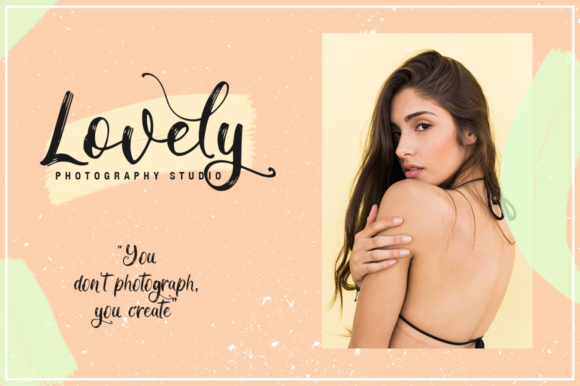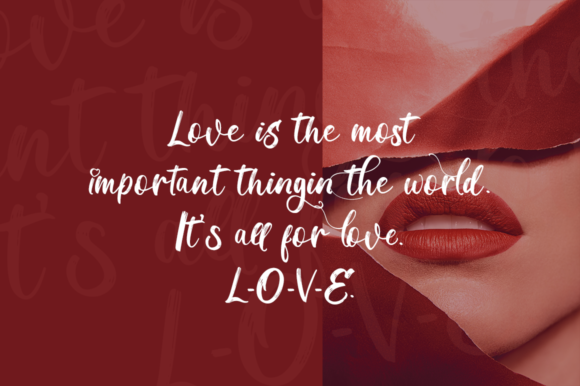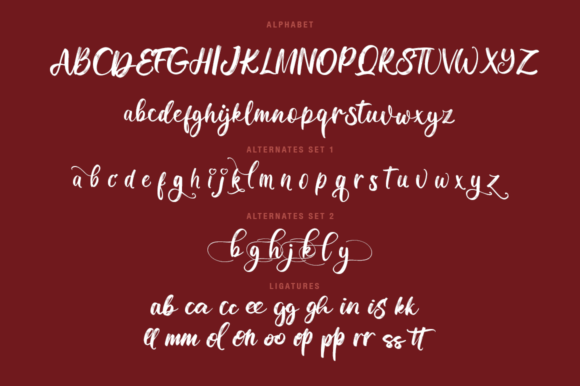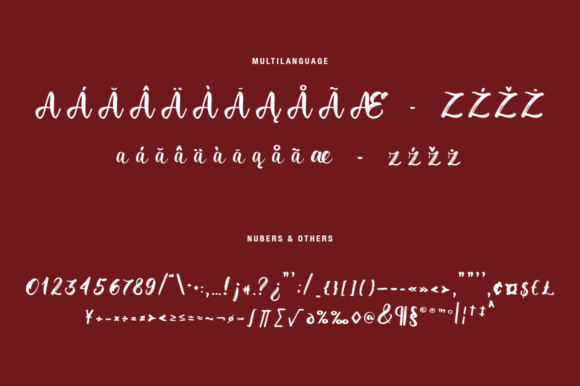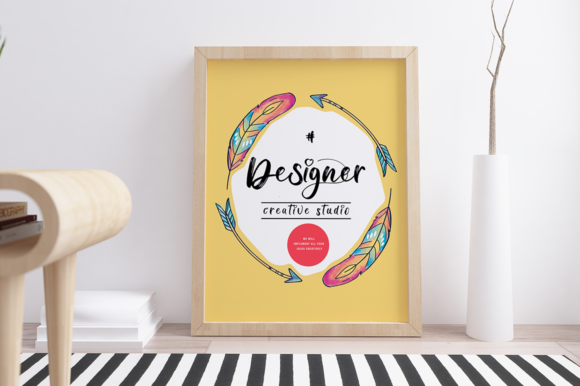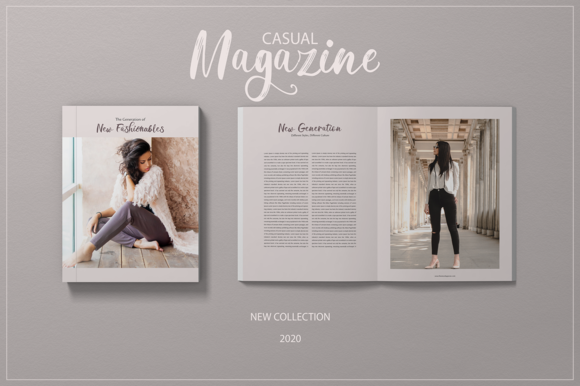
Dreaming Font: Elevate Your Design Projects with a Stunning Script Font
Dreaming is a stunning and dreamy script font that will turn any design project into a true piece of art. This beautiful font is perfect for designers and crafters looking to add a touch of elegance and sophistication to their work. In this article, we’ll explore the features and benefits of the Dreaming font, and how it can help take your design projects to the next level.
What is Dreaming Font?
Dreaming font is a script font that is designed to evoke a sense of whimsy and romance. Its flowing lines and delicate curves make it perfect for creating beautiful and eye-catching designs. The font is highly legible, making it suitable for use in a variety of design projects, from wedding invitations and greeting cards to branding and packaging.
Key Features of Dreaming Font
- Beautiful Script Design: The Dreaming font features a stunning script design that is sure to add a touch of elegance to any design project.
- Highly Legible: The font is highly legible, making it easy to read and understand, even at small sizes.
- Versatile: The Dreaming font is versatile and can be used in a variety of design projects, from print to digital.
Benefits of Using Dreaming Font
There are many benefits to using the Dreaming font in your design projects. Here are just a few:
- Adds Elegance and Sophistication: The Dreaming font adds a touch of elegance and sophistication to any design project, making it perfect for high-end branding and marketing materials.
- Creates Emotional Connection: The font’s dreamy and whimsical design helps to create an emotional connection with the viewer, making it perfect for use in advertising and marketing materials.
- Stand Out from the Crowd: The Dreaming font is unique and eye-catching, helping your design project to stand out from the crowd.
Design Project Ideas Using Dreaming Font
The Dreaming font is versatile and can be used in a variety of design projects. Here are some ideas to get you started:
- Wedding Invitations: Use the Dreaming font to create beautiful and elegant wedding invitations that set the tone for the big day.
- Greeting Cards: Use the font to create stunning greeting cards for special occasions, such as birthdays and anniversaries.
- Branding and Packaging: Use the Dreaming font to add a touch of elegance and sophistication to your branding and packaging materials.
- Advertising and Marketing: Use the font to create eye-catching advertising and marketing materials that grab the viewer’s attention.
The Dreaming font is a stunning and dreamy script font that is perfect for designers and crafters looking to add a touch of elegance and sophistication to their work. With its beautiful design, high legibility, and versatility, it’s no wonder that this font is a popular choice for a variety of design projects. Whether you’re creating wedding invitations, greeting cards, or branding materials, the Dreaming font is sure to turn your design project into a true piece of art.